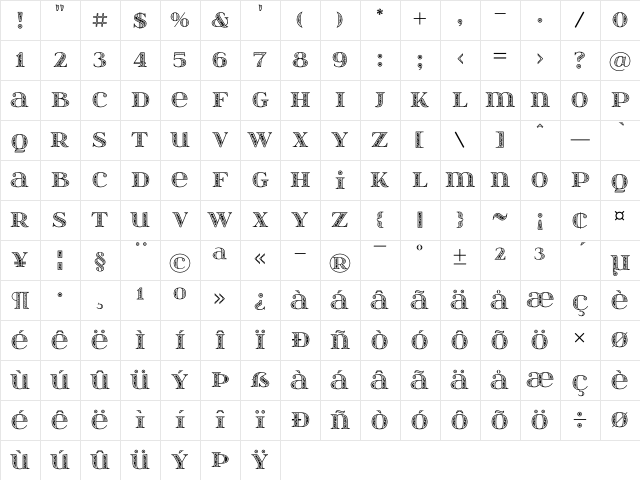
itsadzokeS02 Regular
Design Context for itsadzokeS02
itsadzokeS02 is a composed and adaptable typeface that performs quietly and consistently across a wide range of design contexts.